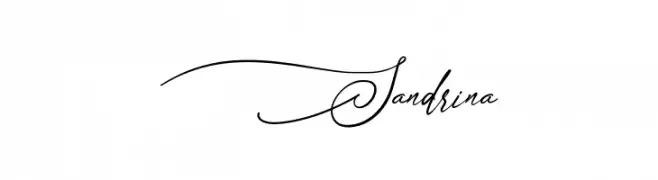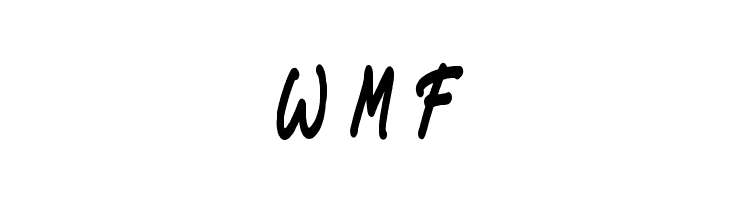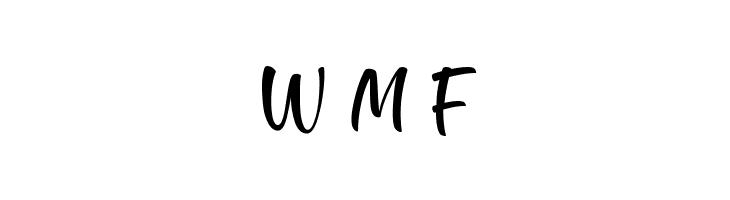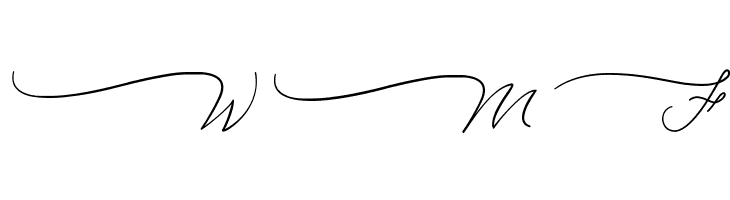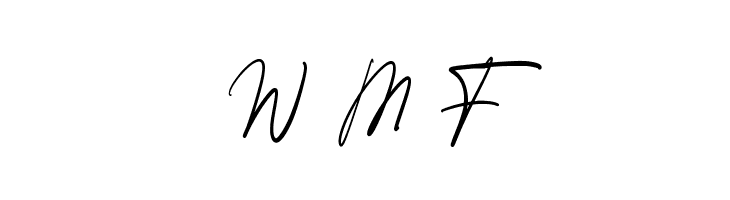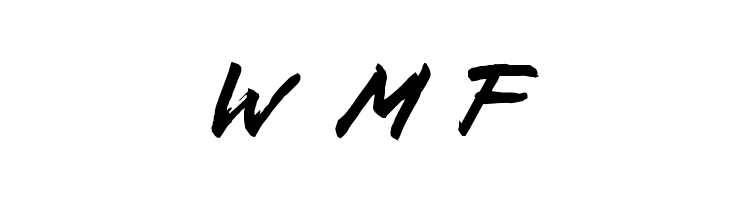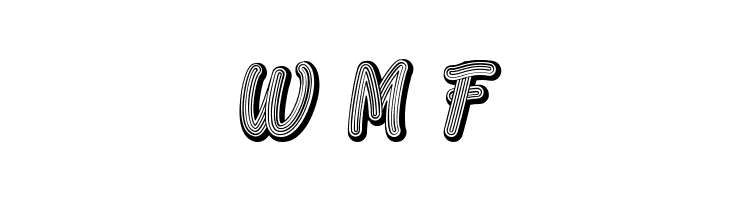
A lively and expressive handwritten font with fluid strokes and dynamic energy.
A bold, handwritten font with a dynamic and informal style.
A bold, playful script font with a brush-like, handwritten style.
A bold, textured script font with a brush-like, expressive style.
A graceful script font with fluid, interconnected strokes and elegant flourishes.
An elegant, flowing script font with a sophisticated and graceful style.
A dynamic, cursive script font with fluid, connected letters and varying stroke thickness.
A bold, brush-style font with dynamic strokes and energetic flow.
A bold, expressive script font with flowing, interconnected strokes.
A bold, decorative font with a layered, dimensional effect.